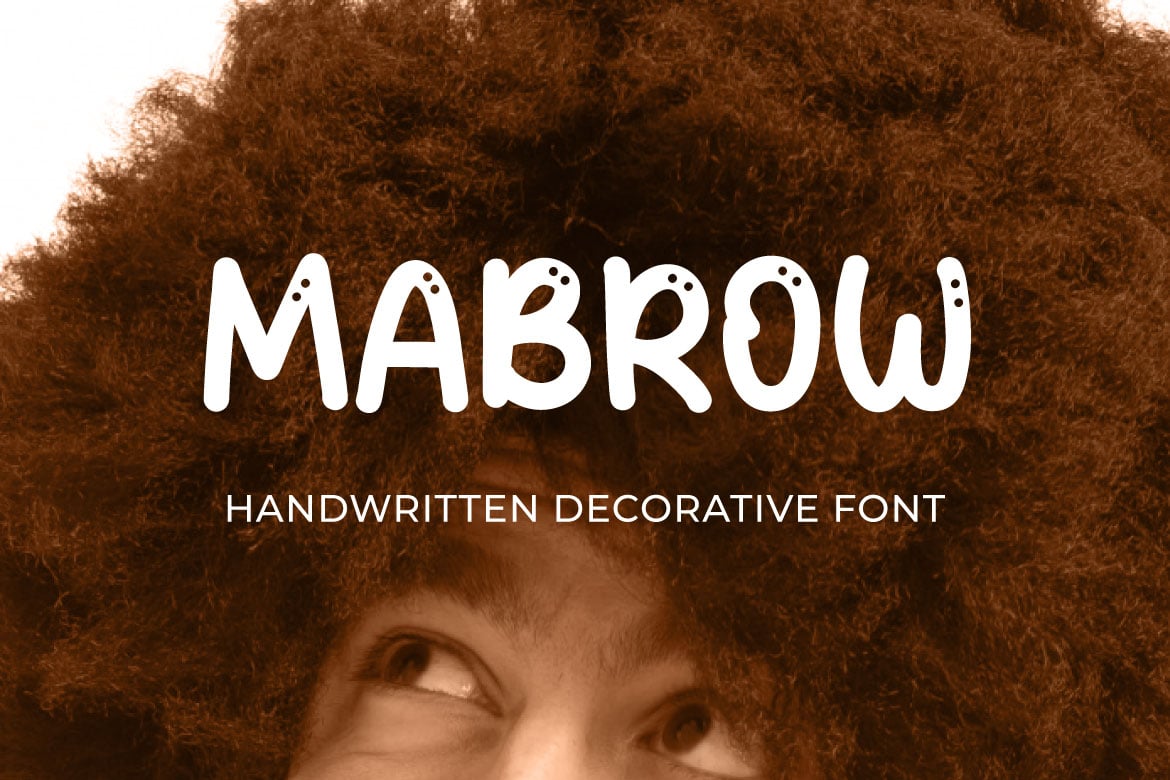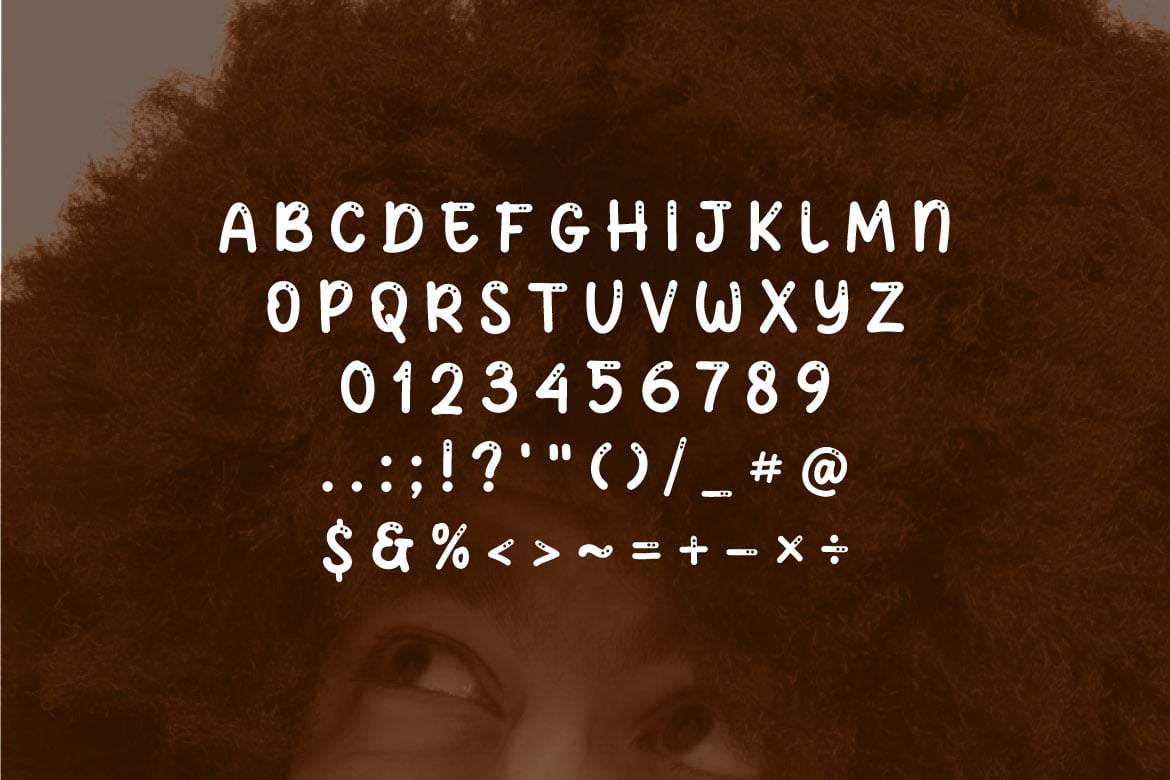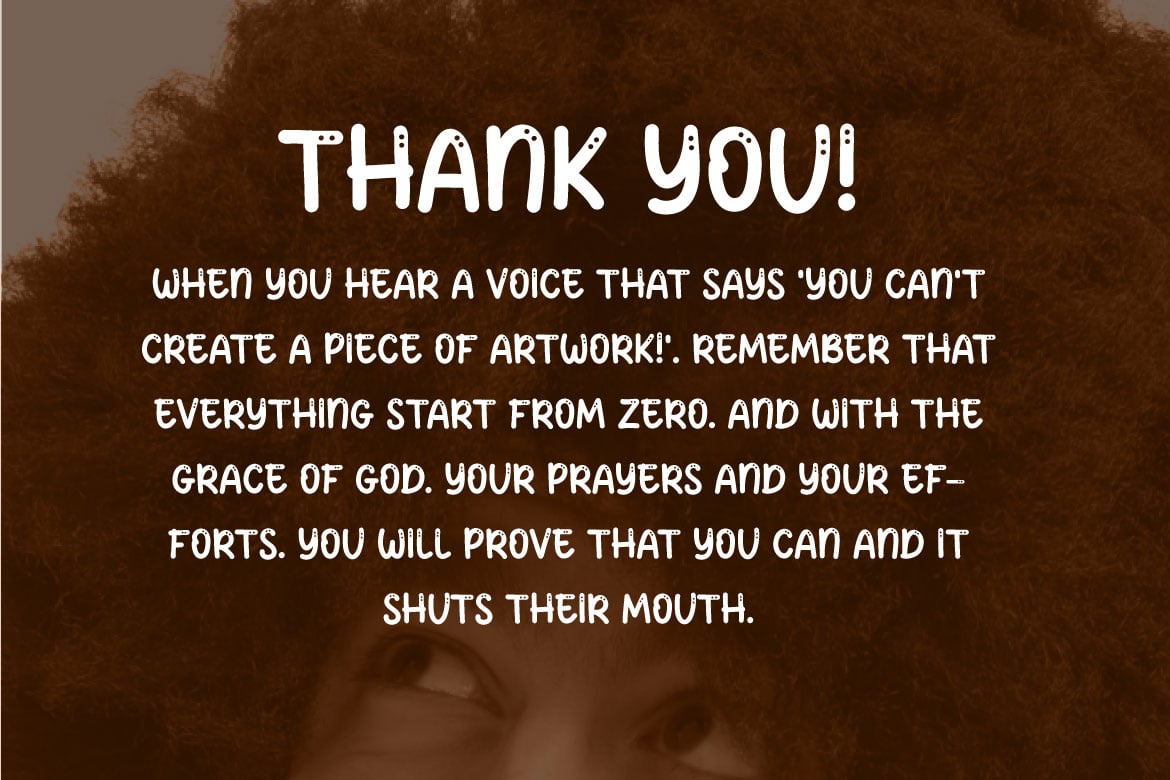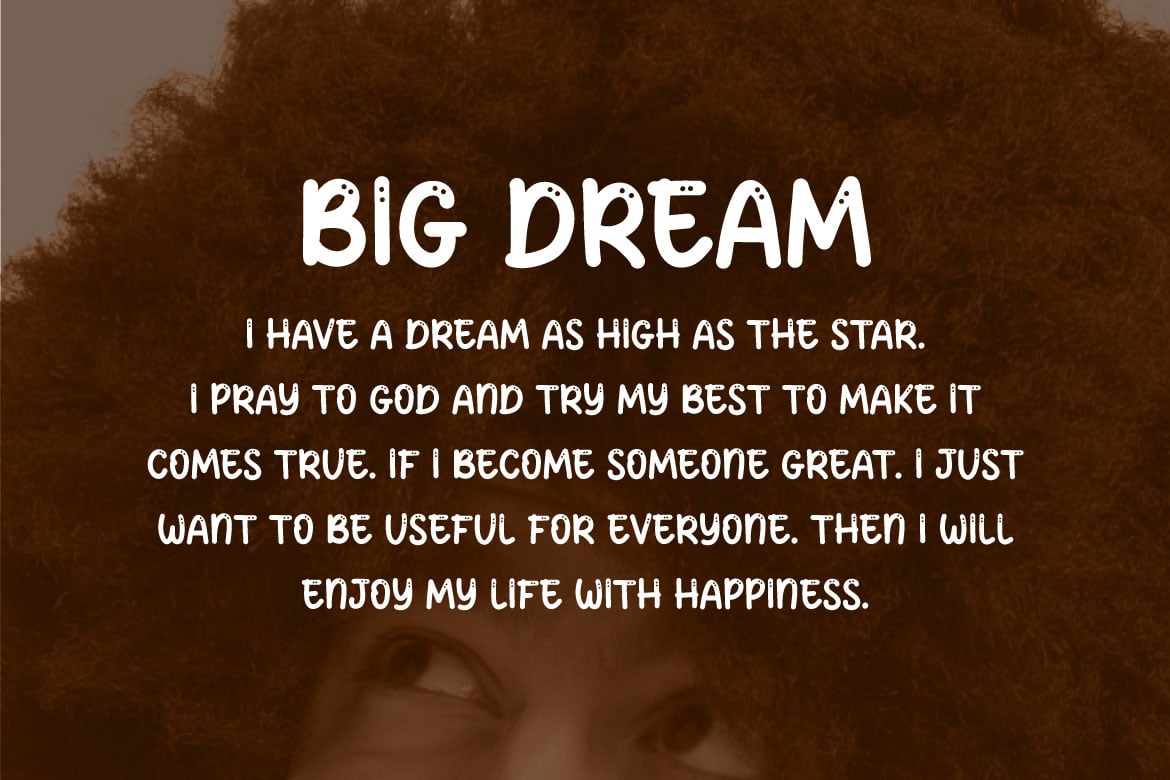
Mabrow – Handwritten Decorative Font
Hello! Mabrow is a decorative display font.
Mabrow can be used in any works such as comic, book title, magazine logo, music cover, Youtube channel and many more.